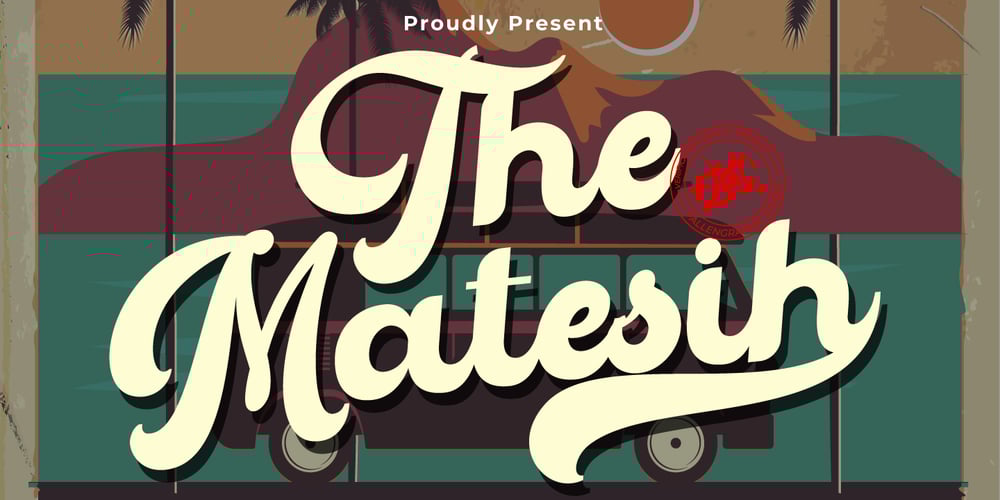
The Matesih
The Matesih font
The Matesih Font Family was designed by Vava Aryanto and published by FallenGraphic. The Matesih contains 1 styles and family package options. The Matesih is an amazing handwritten font. This font will make your design more beautiful and powerful, and is suitable for any design such as branding, quotes and more. It includes: -Accents (Multilingual Characters) -PUA encoded -Numerals and Punctuation (OpenType Standard) -Many alternate characters